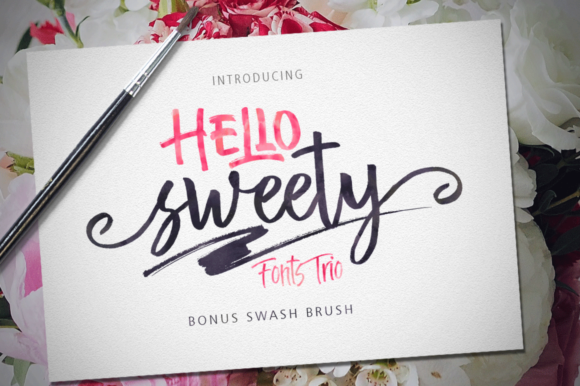
Embrace the Sweetness of Hello Sweety Trio Font: A Brush Trio Perfect for Any Creative Endeavor
Enter the realm of elegance and charm with Hello Sweety Trio Font, a breathtaking collection of three distinctive brush fonts. The Hello Sweety Trio is meticulously crafted to infuse your designs with a touch of whimsy, sophistication, and heartfelt warmth.
Step into a world where creativity knows no bounds. With Hello Sweety Trio, you have the power to transform your branding projects, logos, invitations, and any other creative endeavor into captivating masterpieces. Its versatility is truly remarkable, enabling you to effortlessly blend the three styles together to achieve endless design possibilities.
Indulge in the artistry of Hello Sweety Trio and let your imagination soar. Its elegant brush strokes will add a touch of grace and charm to your designs, while its playful personality will leave a lasting impression.